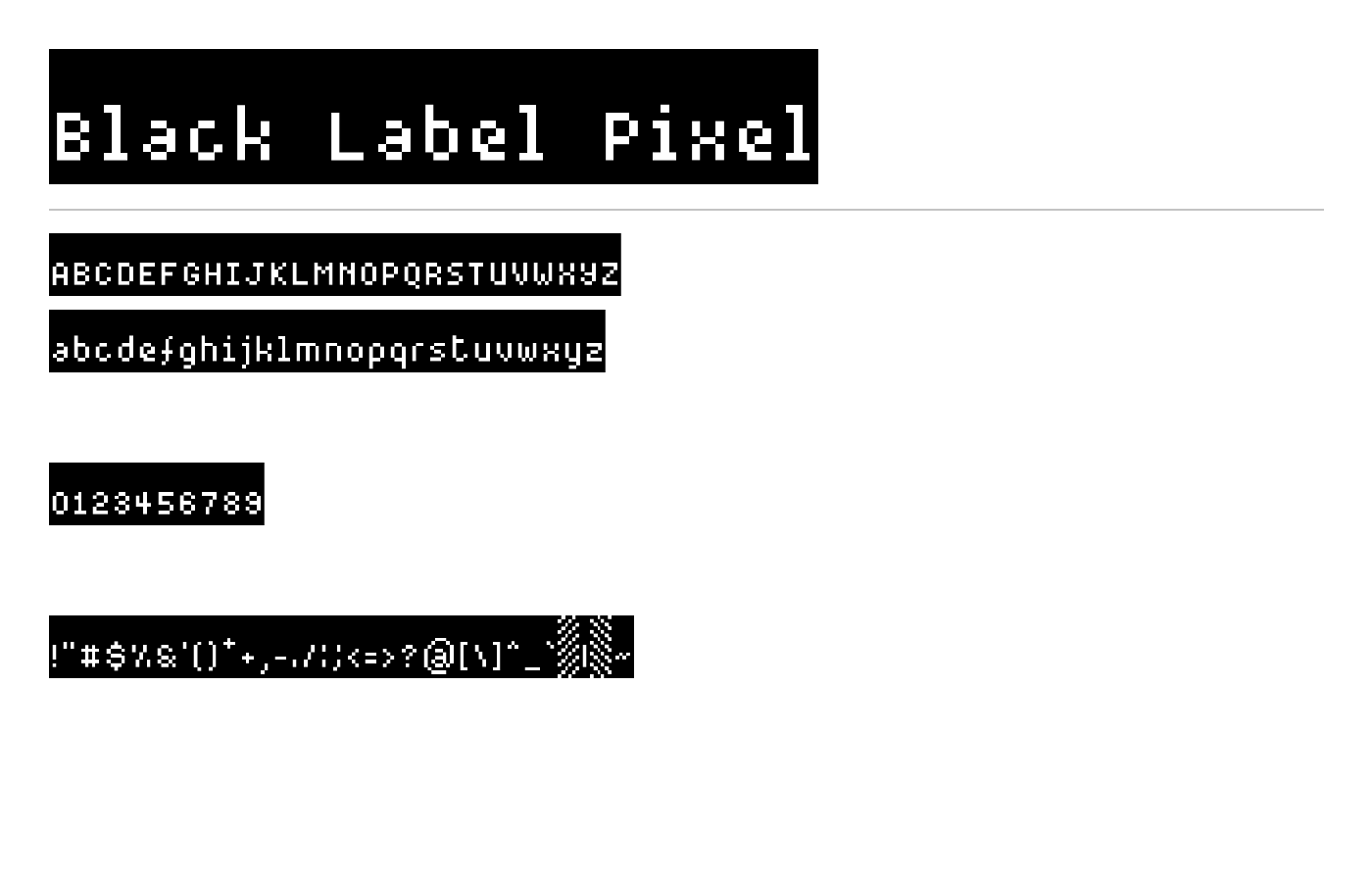
Black Label Pixel is a monospaced pixel-style font that channels a retro digital aesthetic with its crisp, blocky letterforms and uniform stroke weight. Its clean, simple design and clear character shapes make it ideal for use in tech-inspired graphics, coding environments, or vintage video game projects, offering a nostalgic yet modern feel. This font works best in headlines, logos, or interfaces where readability and a distinctive pixelated charm are needed.
Black Label Pixel Font
About Black Label Pixel Font